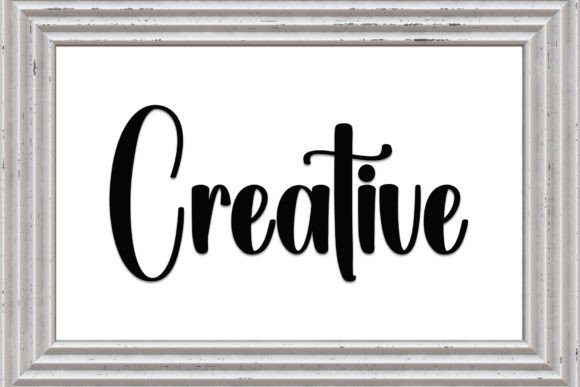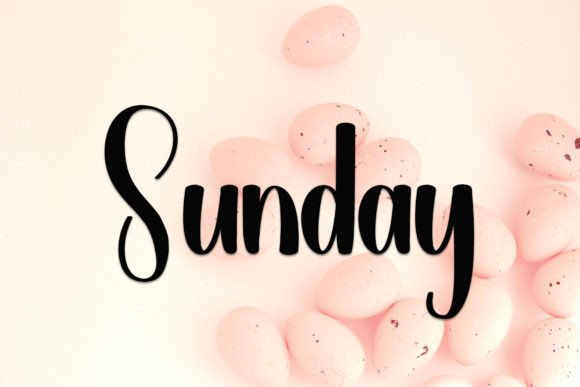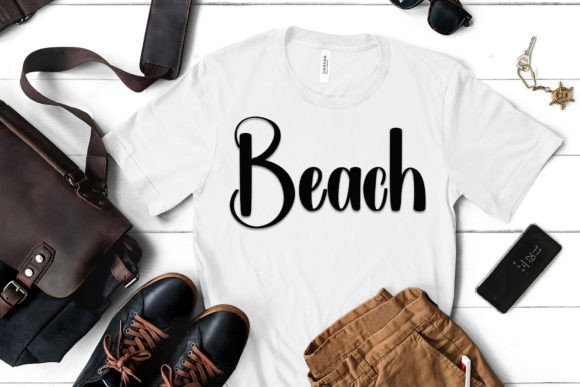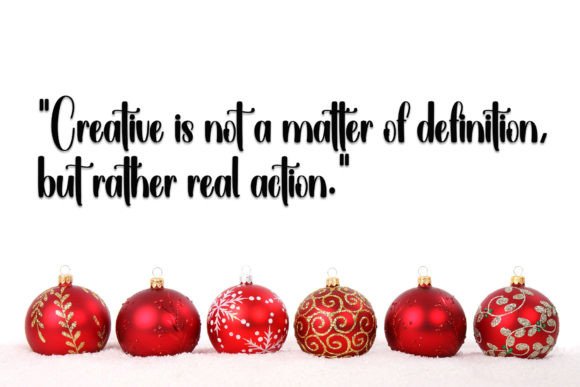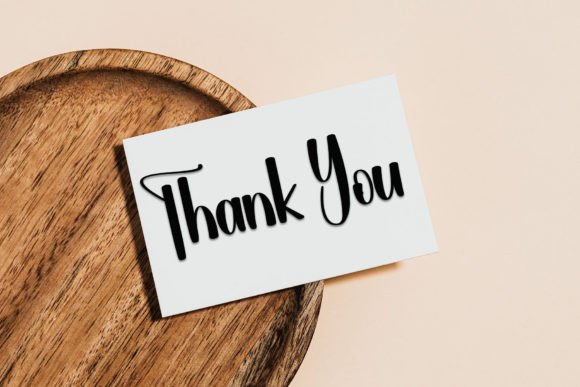
Unleash Your Creativity with the Perfect Font
Do you remember that moment when you stumbled upon a font that made your design dreams come true? For many creatives, it’s a moment of pure magic – the perfect combination of style, elegance, and uniqueness that elevates their work to the next level. This is exactly what the Aesthetic Font does – it brings your designs to life with its beautiful, handwritten touch.
Aesthetic Font is a timeless and distinct font, perfect for adding a personal touch to your favorite projects. Whether you’re a graphic designer, a writer, or a social media influencer, this font is sure to captivate your audience with its elegant style. With Aesthetic Font, you can create spectacular designs that reflect your unique taste and aesthetic, making it a valuable asset for any designer.
Aesthetic Font Key Features
- Unique Characteristics: Aesthetic Font features a unique blend of modern and vintage elements, with intricate details and subtle texture, adding a touch of elegance to any design.
- Style Variations: The font comes with 5 different styles, including Regular, Bold, Italic, Bold Italic, and Outline, allowing designers to experiment with various looks and feels.
A Designer’s Honest Review: Aesthetic Font
I recently had the chance to work with Aesthetic Font, and I must say, it’s a beautiful addition to any design project. ✨ Here are some of the things that really stood out to me:
- Legibility: This font is incredibly easy to read, even at smaller sizes. The letterforms are clean and well-spaced, making it perfect for body text.
- Style: The font’s aesthetic is sleek and modern, with a subtle touch of elegance. It’s perfect for designers looking to add a bit of sophistication to their projects.
- Customization: The font offers a range of weights and styles, making it easy to find the perfect fit for your design needs.
However, as with any font, there are some limitations to be aware of: ⚠️
- Font size: While the font is legible at smaller sizes, it may not be the best choice for very large headings or titles.
- Kerning: I found that the font’s kerning can be a bit off at times, particularly when combining certain letter pairs.
Overall, I’d say Aesthetic Font is a solid choice for designers looking for a clean, modern font. While it may not be perfect, it’s definitely worth considering for your next project.
The Aesthetic Font is commonly used for:
- Creating visually appealing social media graphics
- Designing eye-catching website headers and footers
- Adding a touch of elegance to business presentations and reports
- Creating unique and creative blog posts and articles